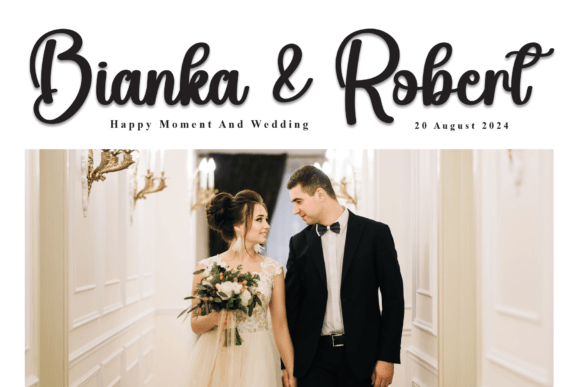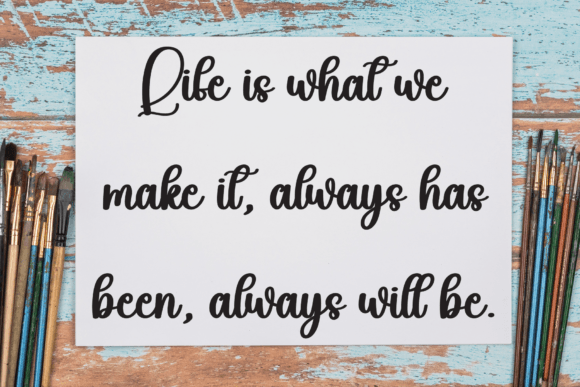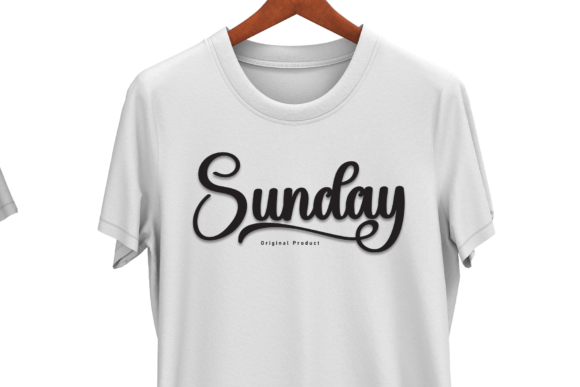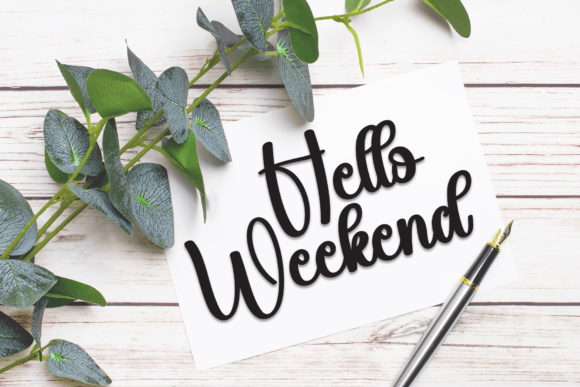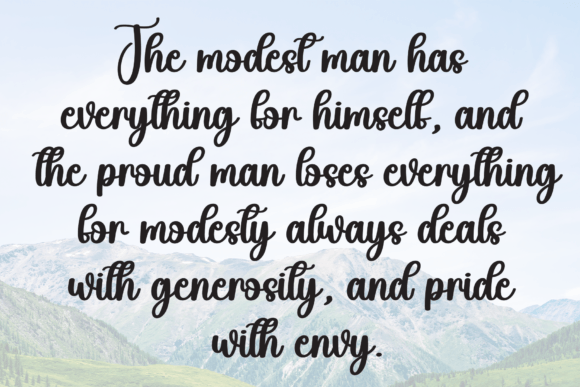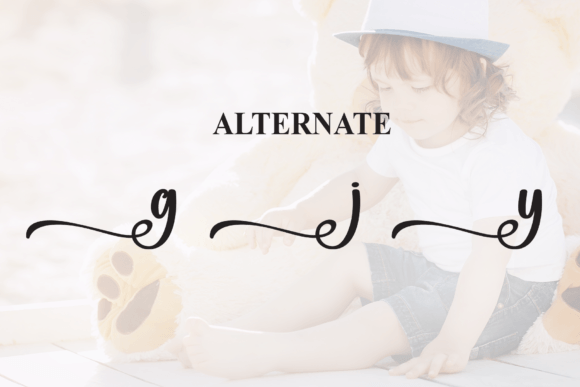
Baby Cowboy Font: A Lovely and Timeless Handwritten Font for Designers and Crafters
Are you a designer or crafter looking for a unique and beautiful font to add a personal touch to your designs? Look no further than the Baby Cowboy font! This lovely and timeless handwritten font is perfect for creating eye-catching logos, branding, and quotes that will make your design come alive.
What Makes Baby Cowboy Font So Special?
Baby Cowboy font is a one-of-a-kind handwritten font that boasts a unique and beautiful touch. Every letter is carefully crafted to provide a distinctive and stylish look that will set your designs apart from the rest. The font’s classic and timeless feel makes it suitable for a wide range of design projects, from rustic and country-themed designs to modern and elegant ones.
The Baby Cowboy font is an excellent choice for creating logos, branding, and quotes that require a personal and distinctive touch. Its elegant and cursive style makes it perfect for:
- Logos: Create a memorable and eye-catching logo for your business or brand with the Baby Cowboy font.
- Branding: Use the font to create a consistent and recognizable brand identity across all your marketing materials.
- Quotes: Add a touch of elegance and sophistication to your quotes and sayings with the Baby Cowboy font.
Why Designers and Crafters Love Baby Cowboy Font
Designers and crafters love the Baby Cowboy font for several reasons:
- Unique and Beautiful Touch: Every letter has a unique and beautiful touch that adds a personal and distinctive feel to designs.
- Timeless and Classic: The font’s classic and timeless feel makes it suitable for a wide range of design projects.
- Elegant and Cursive: The font’s elegant and cursive style makes it perfect for creating logos, branding, and quotes.
How to Use Baby Cowboy Font in Your Designs
Using the Baby Cowboy font in your designs is easy! Here are some tips to get you started:
- Pair it with Other Fonts: Pair the Baby Cowboy font with other fonts to create a unique and stylish look.
- Experiment with Colors: Experiment with different colors to find the perfect combination that matches your brand or design.
- Use it for Headings and Titles: Use the Baby Cowboy font for headings and titles to add a touch of elegance and sophistication.
In conclusion, the Baby Cowboy font is a lovely and timeless handwritten font that is perfect for designers and crafters looking to add a personal and distinctive touch to their designs. Its unique and beautiful touch, timeless and classic feel, and elegant and cursive style make it suitable for a wide range of design projects. Whether you’re creating logos, branding, or quotes, the Baby Cowboy font is an excellent choice that will make your design come alive!